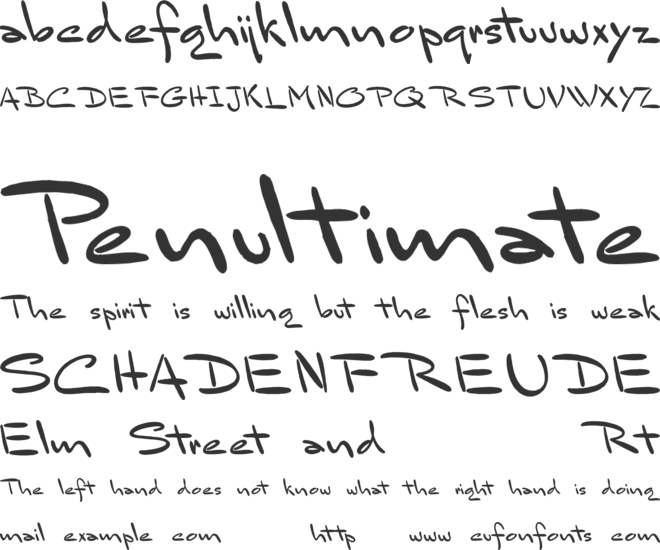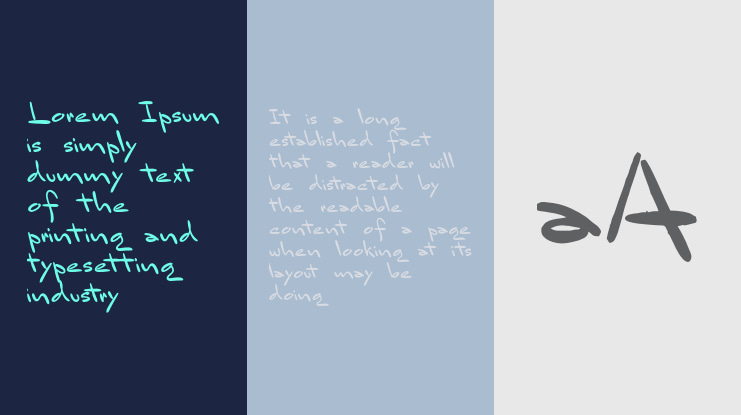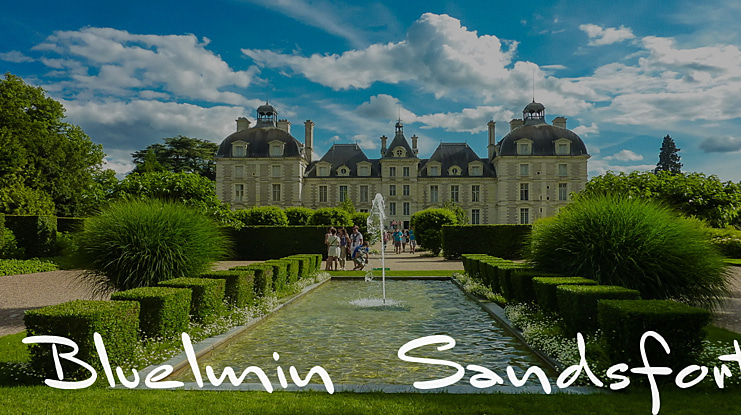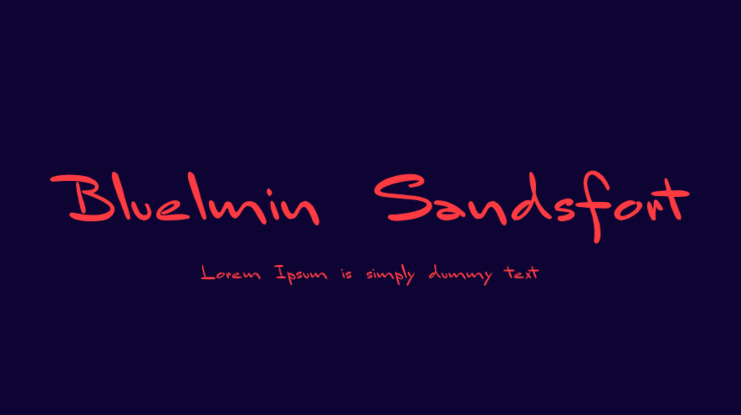
ABOUT THIS FONT - BLUELMIN SANDSFORT
Charles Bluemlein was a penmanship and calligrapher, best known for producing a series of script alphabets for the Higgins Ink Company of Brooklyn, New York. These scripts were published in Script and
Manuscript Lettering in the forties. Bluemlein was one of the last members of the rich tradition of the golden era of the north-american penmanship. With this and the next coming soon fonts, we will try to pay
a tribute to his art, in a free interpretation of his scripts. Despite the original name Bluemlein I decide use a different one to named this series of fonts, Bluelmin.